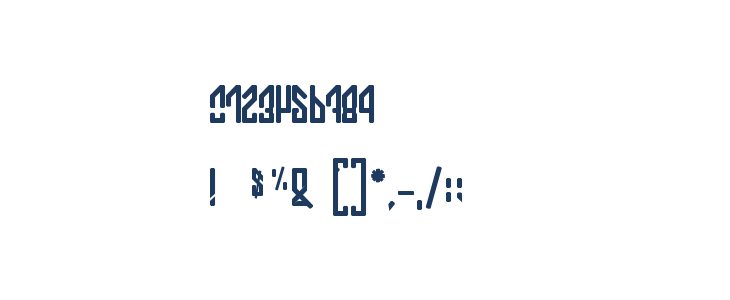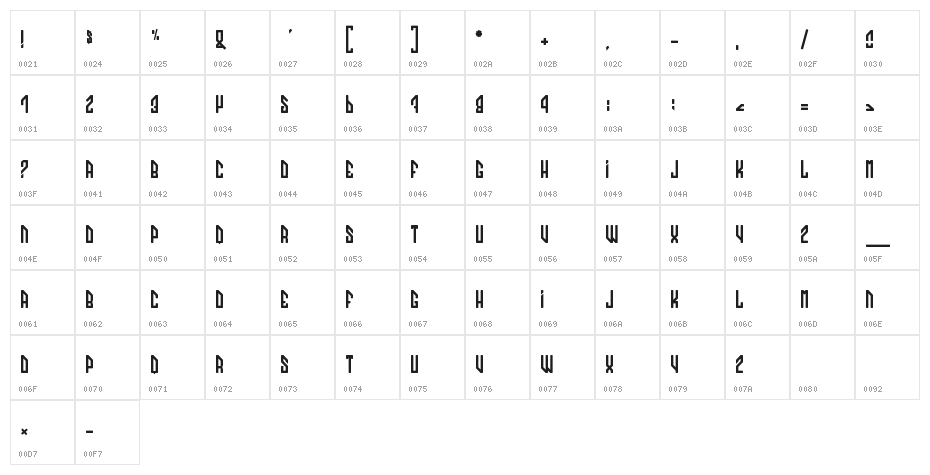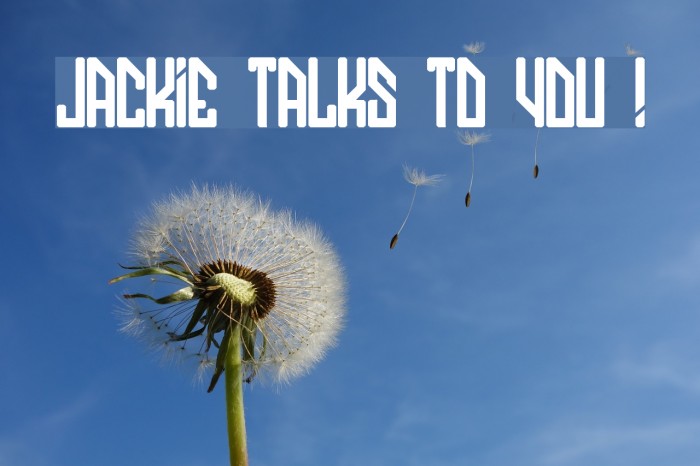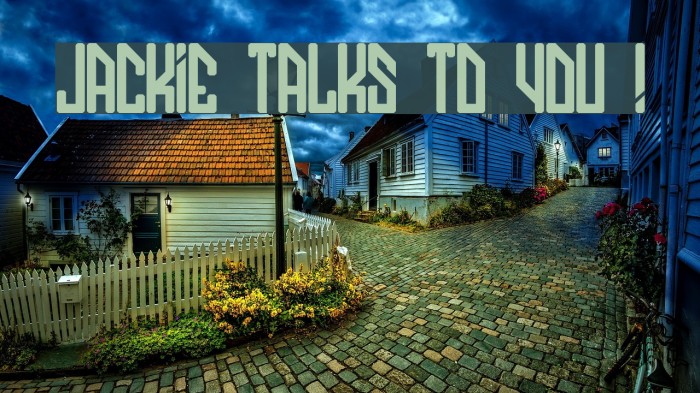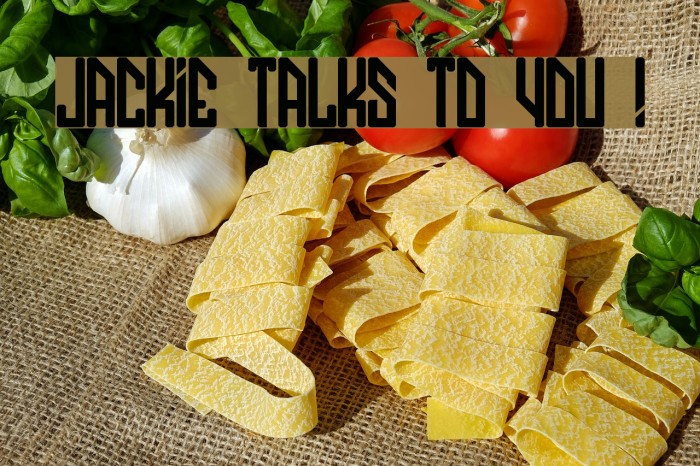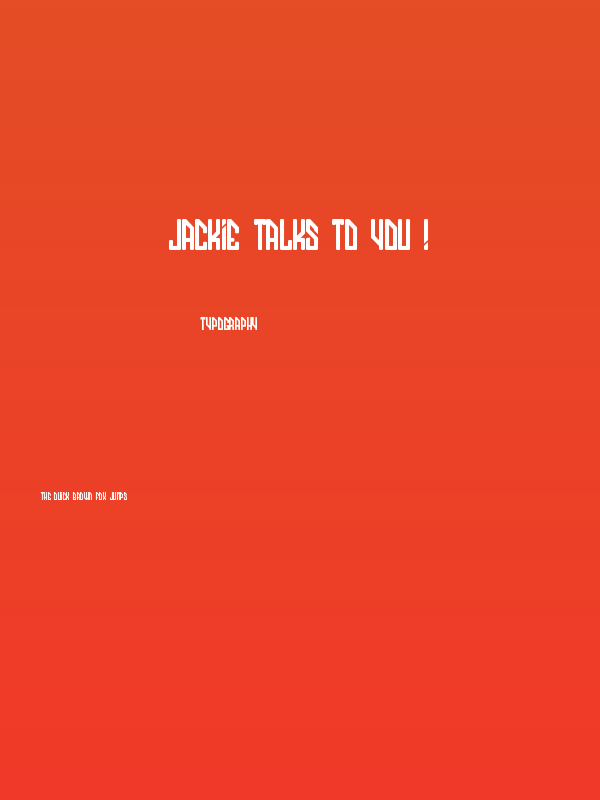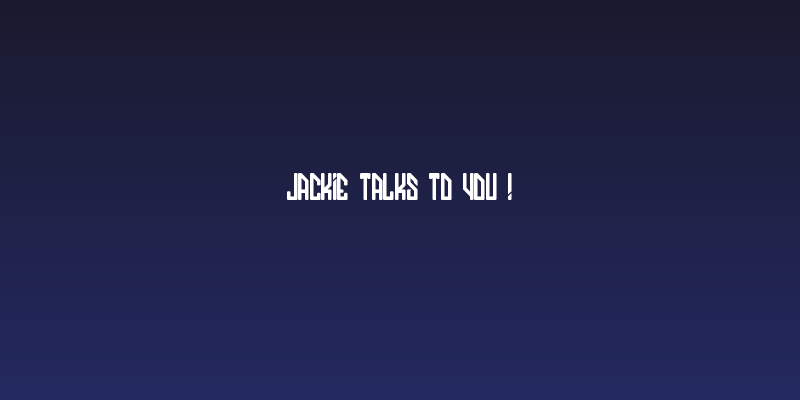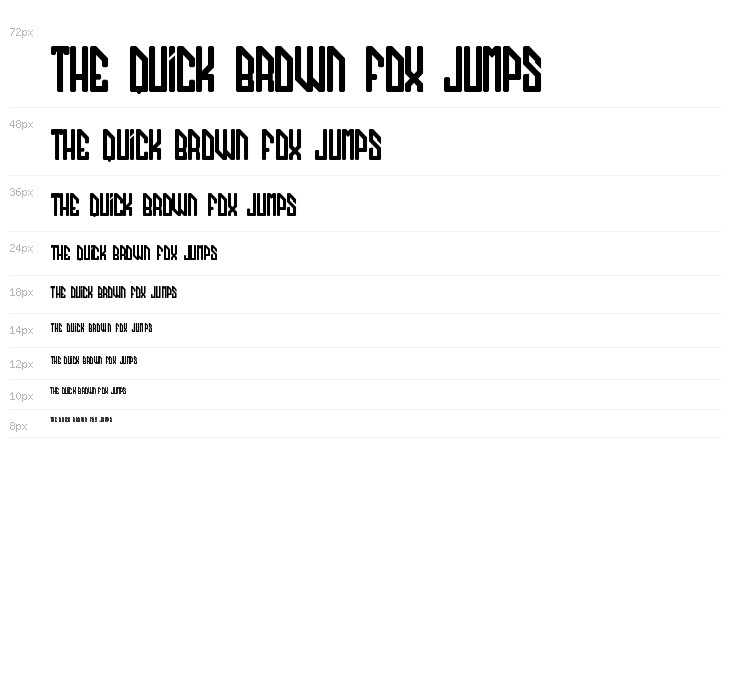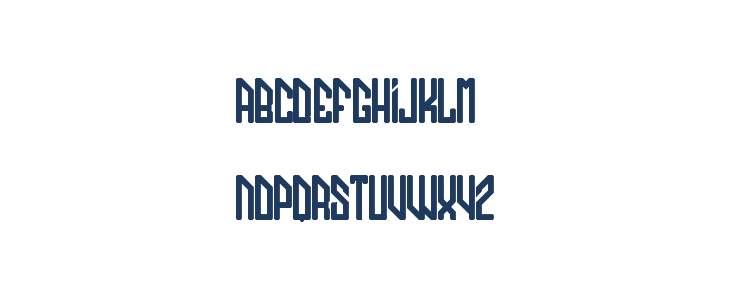
JACKIE TALKS TO YOU ! Font
JACKIE TALKS TO YOU ! Description
This font features a bold and geometric design with a modern and futuristic aesthetic. The characters are constructed with straight lines and sharp angles, giving it a distinct, tech-inspired look. The uppercase and lowercase letters maintain a consistent height, creating a uniform appearance. The numbers and special characters follow the same design principles, ensuring cohesion across all elements. The font's boldness and unique style make it stand out, suitable for projects that require a strong visual impact.
Proposed ProjectsIdeal for technology branding, futuristic posters, video game titles, and sci-fi themed projects.